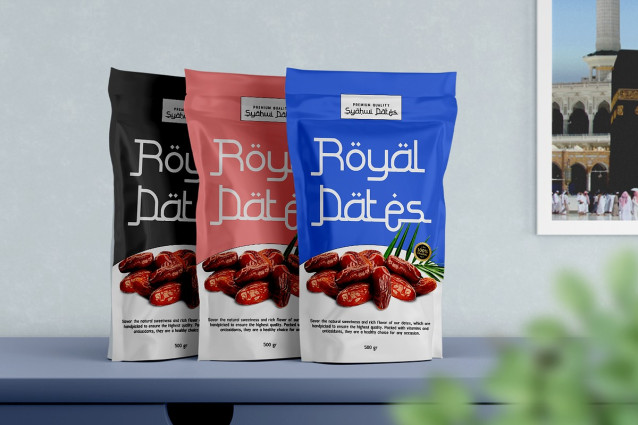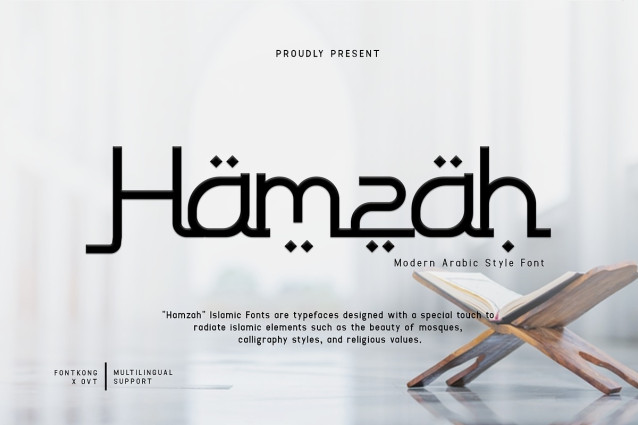
Hamzah Font
Hamzah Font is a sleek modern Arabic-style font perfect for creating striking designs. Its clean, elegant style is great for branding, logos, and any creative project needing a modern Middle Eastern touch. Add sophistication to your designs with Hamzah